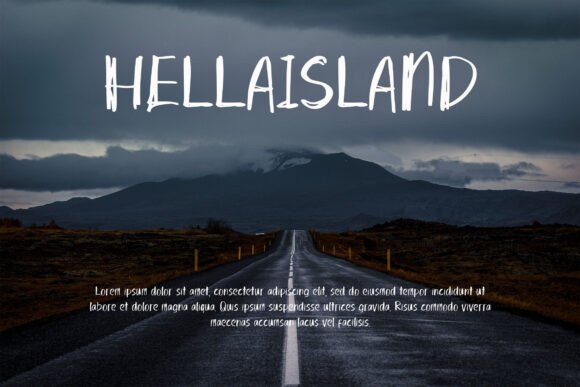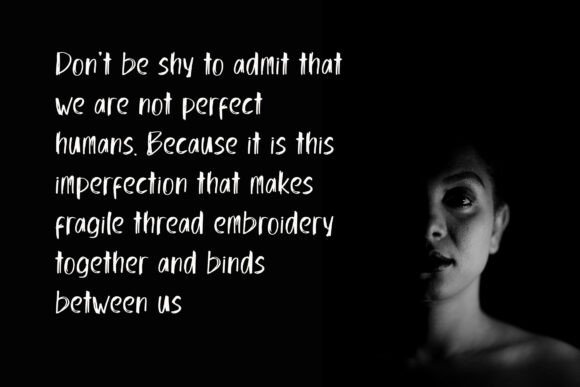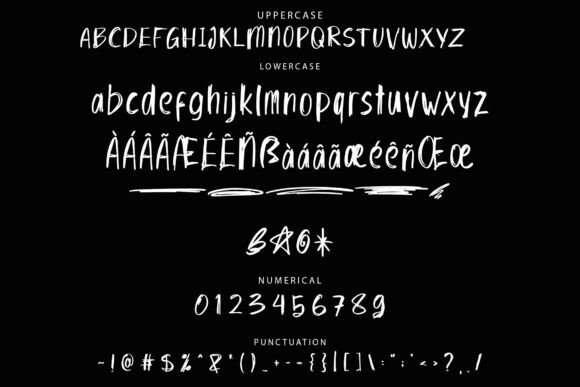
Introducing HandRush: The Bold Rough Handwriting Font for Designers and Crafters
Are you tired of using the same old fonts for your designs? Do you want to add a raw and authentic touch to your branding, packaging, or creative projects? Look no further than HandRush, a dynamic handwriting font with a bold, rough style that’s perfect for making a statement.
What is HandRush?
HandRush is a unique and eye-catching font that’s designed to add a strong, edgy vibe to your designs. With its bold, rough character shapes, HandRush is ideal for designers and crafters who want to create something that’s truly one-of-a-kind. Whether you’re working on a branding project, packaging design, or creative endeavor, HandRush is the perfect font to help you stand out from the crowd.
Key Features of HandRush
- Bold and Rough Style: HandRush has a distinctive bold and rough style that’s perfect for creating eye-catching designs.
- Unique Character Shapes: Each character in HandRush has a unique shape, giving your designs a truly authentic and handmade feel.
- Dynamic Handwriting Style: HandRush has a dynamic handwriting style that’s perfect for creating a sense of movement and energy in your designs.
- Perfect for Branding and Packaging: HandRush is ideal for creating branding and packaging designs that need to stand out on store shelves.
Why Choose HandRush?
So why choose HandRush over other fonts? Here are just a few reasons:
- Adds a Raw and Authentic Touch: HandRush adds a raw and authentic touch to your designs, giving them a truly unique and handmade feel.
- Perfect for Edgy Designs: If you’re looking to create designs with an edgy, bold vibe, HandRush is the perfect font for you.
- Easy to Read: Despite its bold and rough style, HandRush is easy to read, making it perfect for use in a variety of design applications.
Tips for Using HandRush
- Use it for Headlines: HandRush is perfect for use in headlines, where its bold and rough style can really make an impact.
- Experiment with Colors: HandRush looks great in a variety of colors, so don’t be afraid to experiment and find the perfect color for your design.
- Pair it with Other Fonts: HandRush can be paired with other fonts to create a unique and eye-catching design.
HandRush Font Specifications
- Font Type: Handwriting Font
- Font Style: Bold, Rough
- Characters: Uppercase and Lowercase letters, Numbers, Punctuation